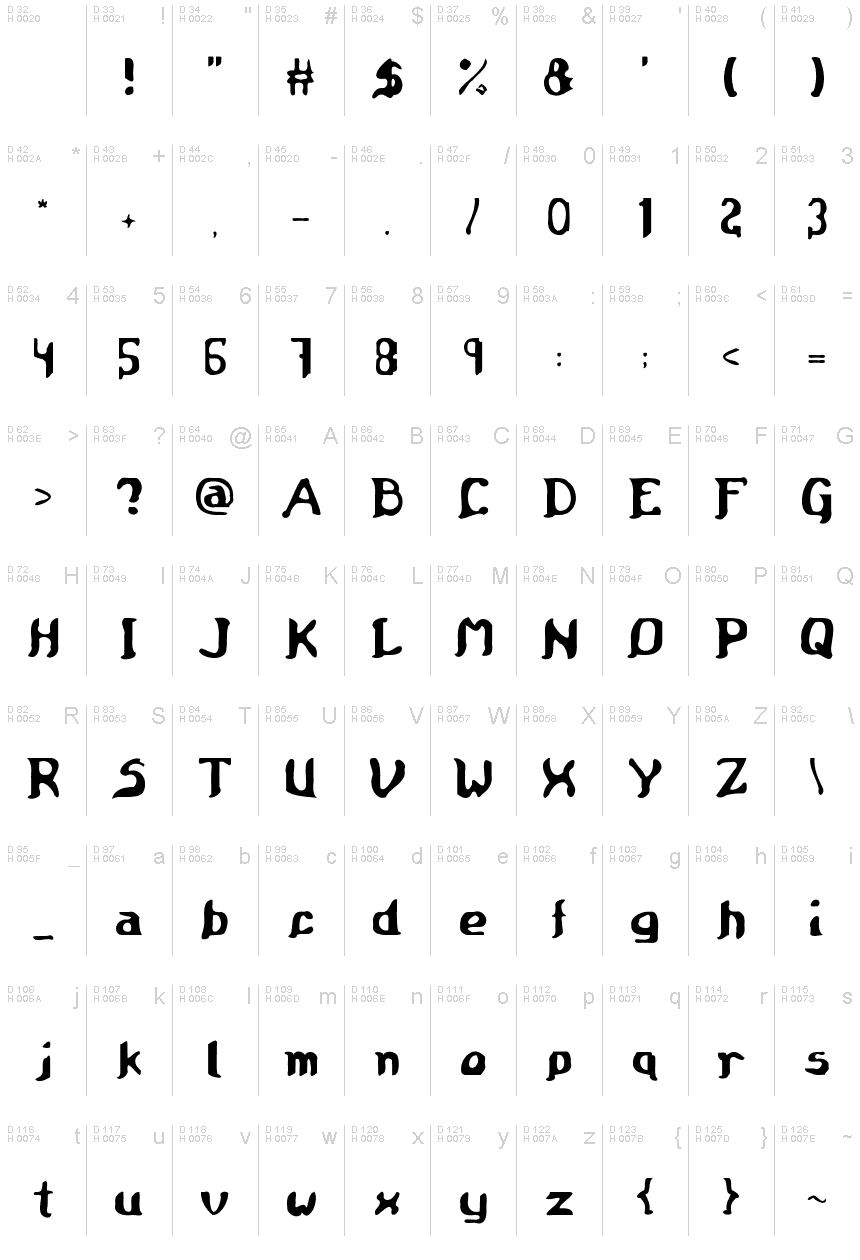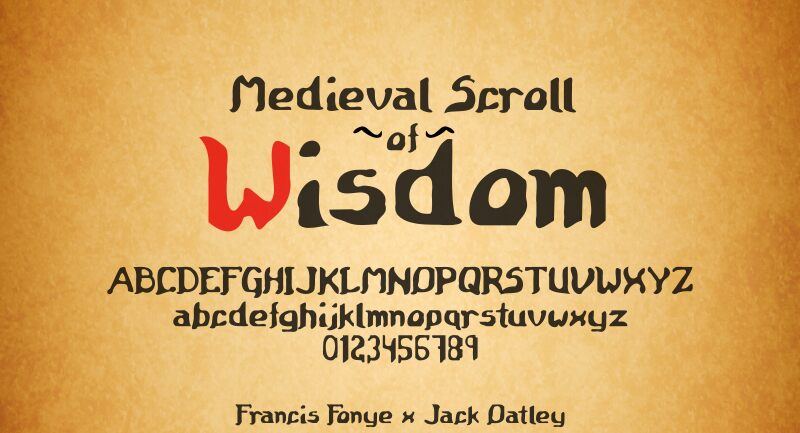
Medieval Scroll of Wisdom - Regular
This font " Medieval Scroll of Wisdom" is created by Francis Fonye & Jack Oatley.
This font is inspired by Octavius, a font previously created by Jack Oatley, which has been revised by Francis Fonye to give it a new look.